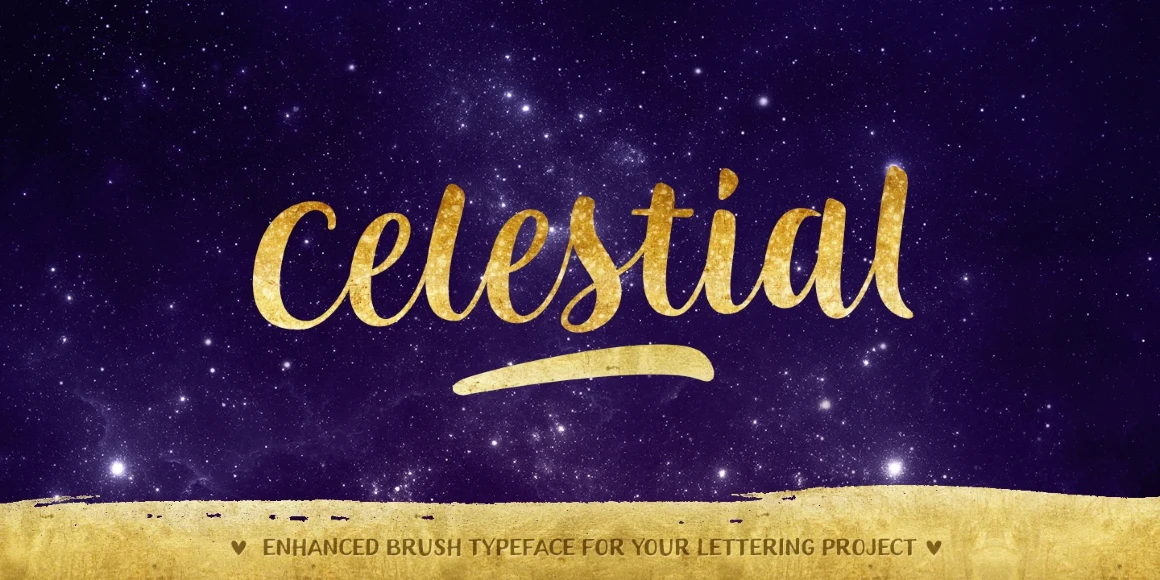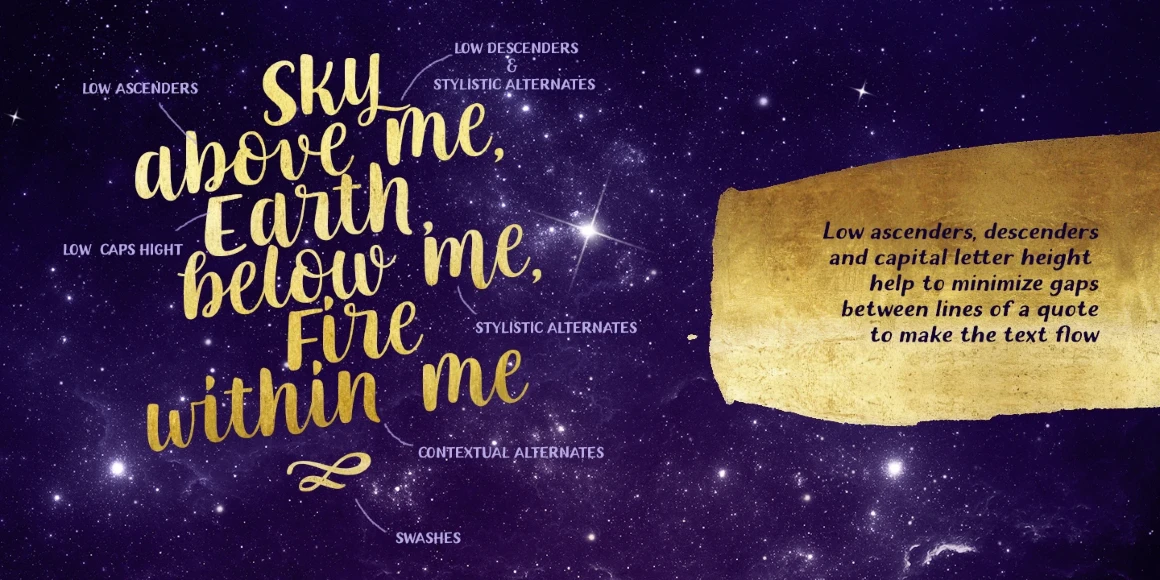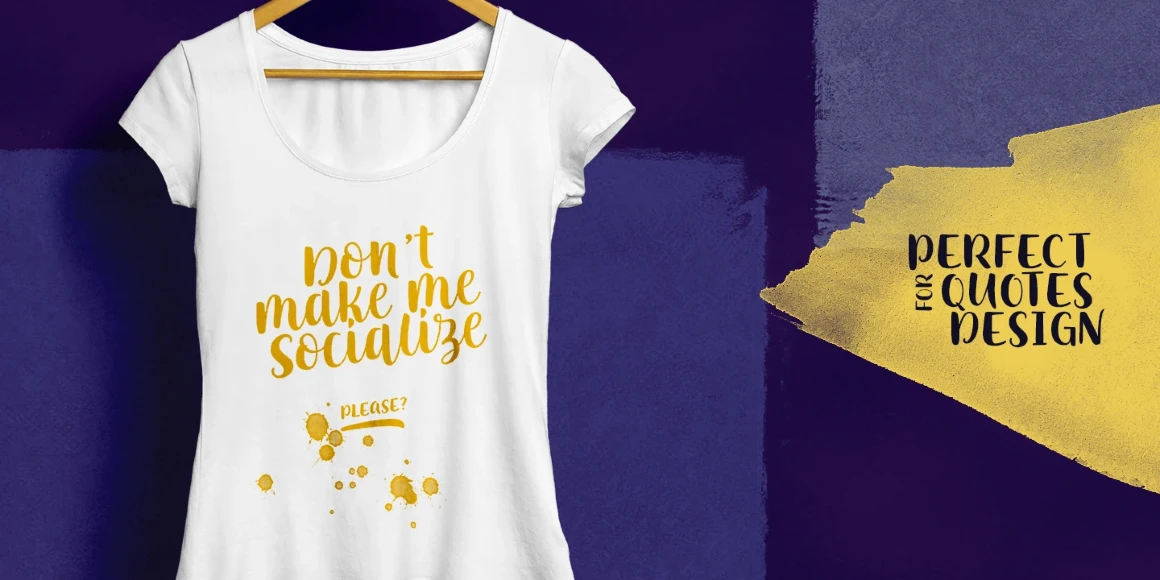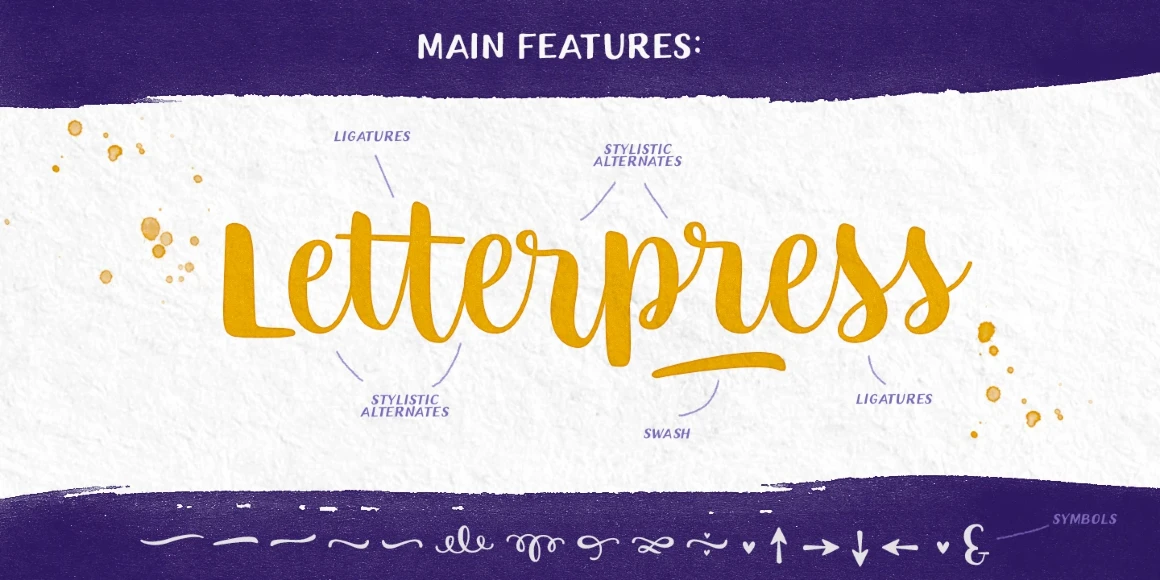
Celestial
From My Creative Land
Celestial is a brush-style script design. It comes packed with features and alternates to make everything look authentically hand-lettered. If you have ever struggled while typesetting a line or multiple lines and the ascenders/descenders get in the way, Celestial was designed to solve this problem. With an almost unicase design, you can stack the type without anything crashing or getting in the way. Celestial is a dynamic face made to add a little something special to your designs.
Designed by Elena Genova
Celestial Regular
Celestial Tall
Initial Forms
Final Forms